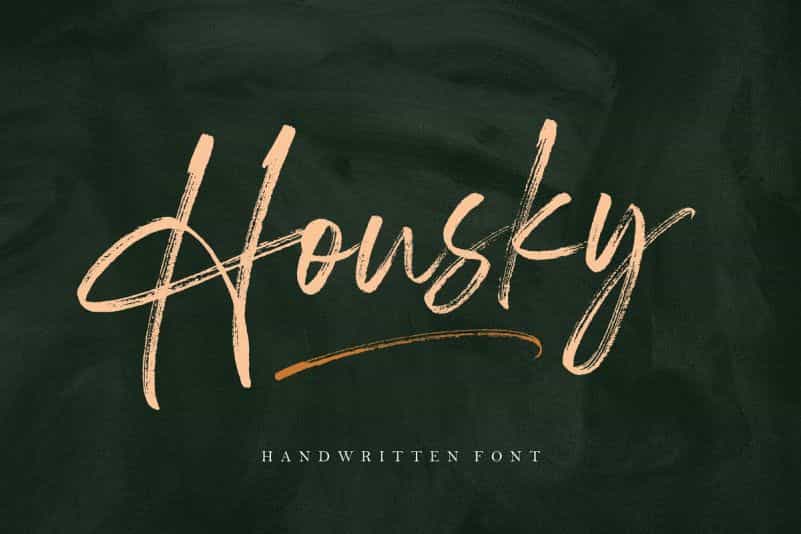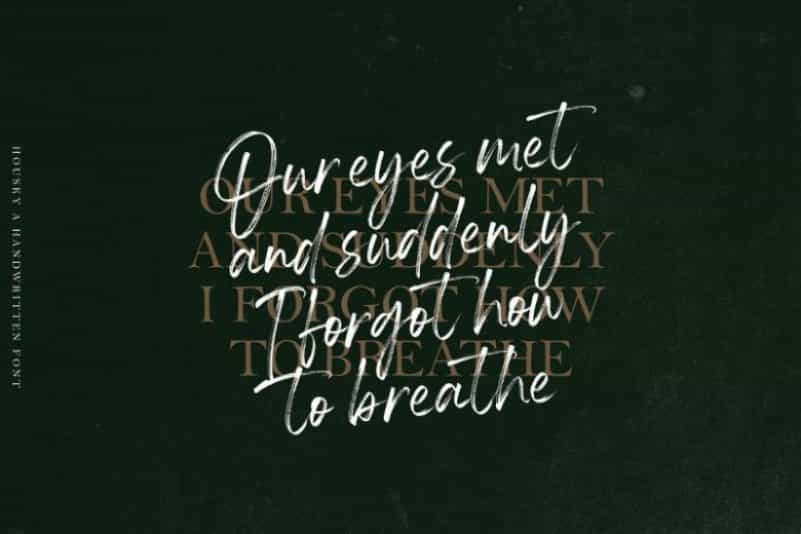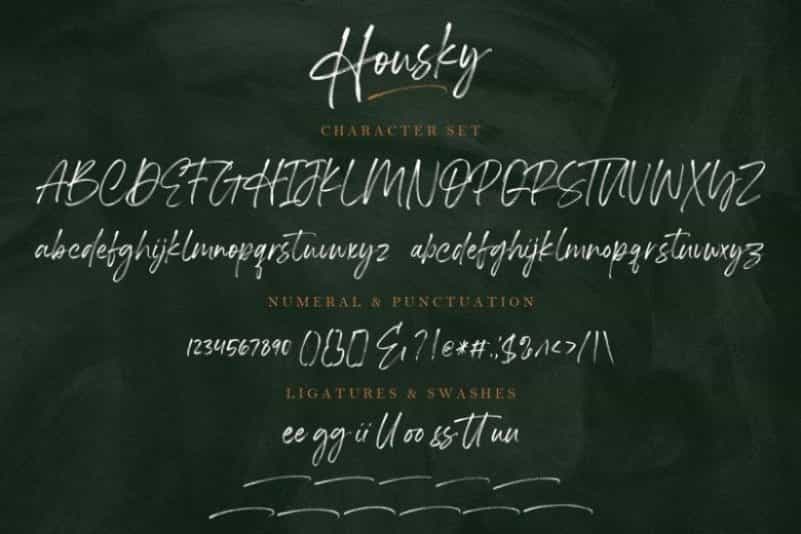
Housky is a script font that has been designed in the modern and elegant style with the help of brushes. It will add an incredibly joyful touch to your designs. Include this beautiful font in each of your creativity and see how it enhances the flow and look of your ideas.